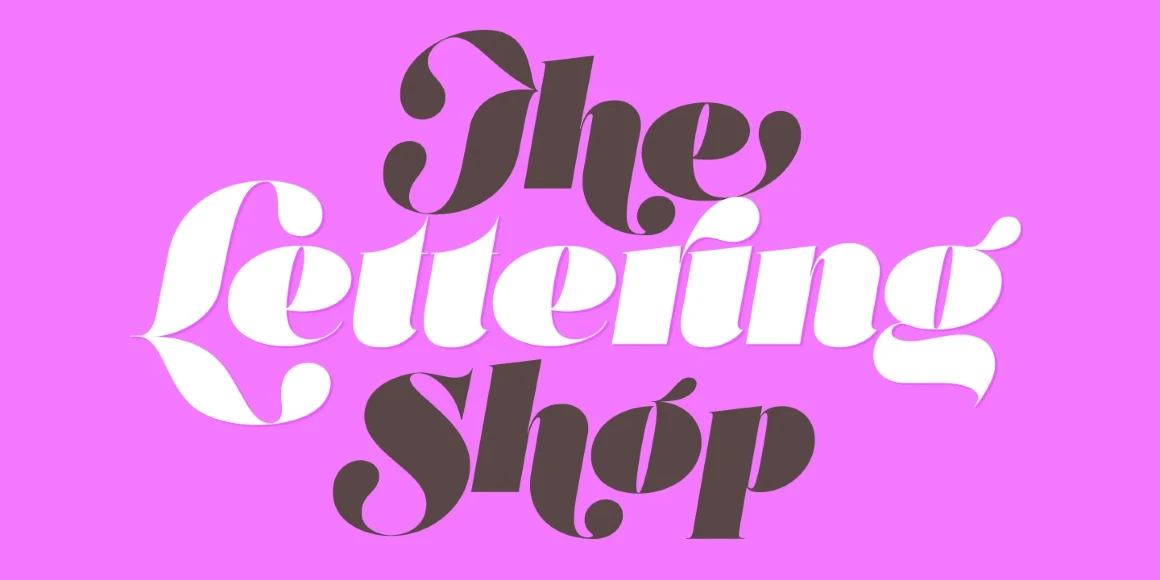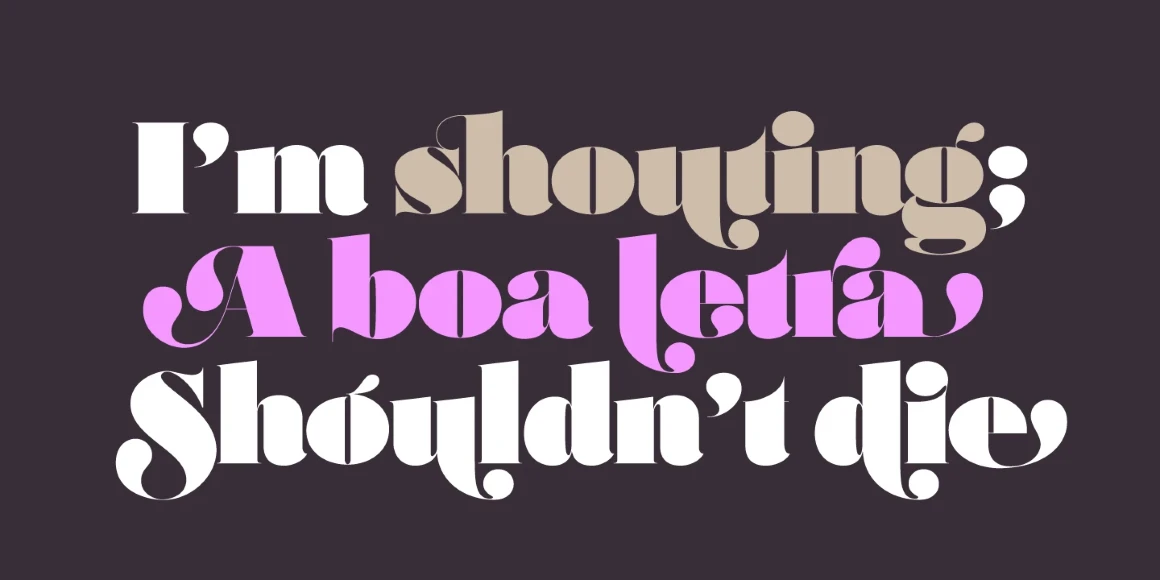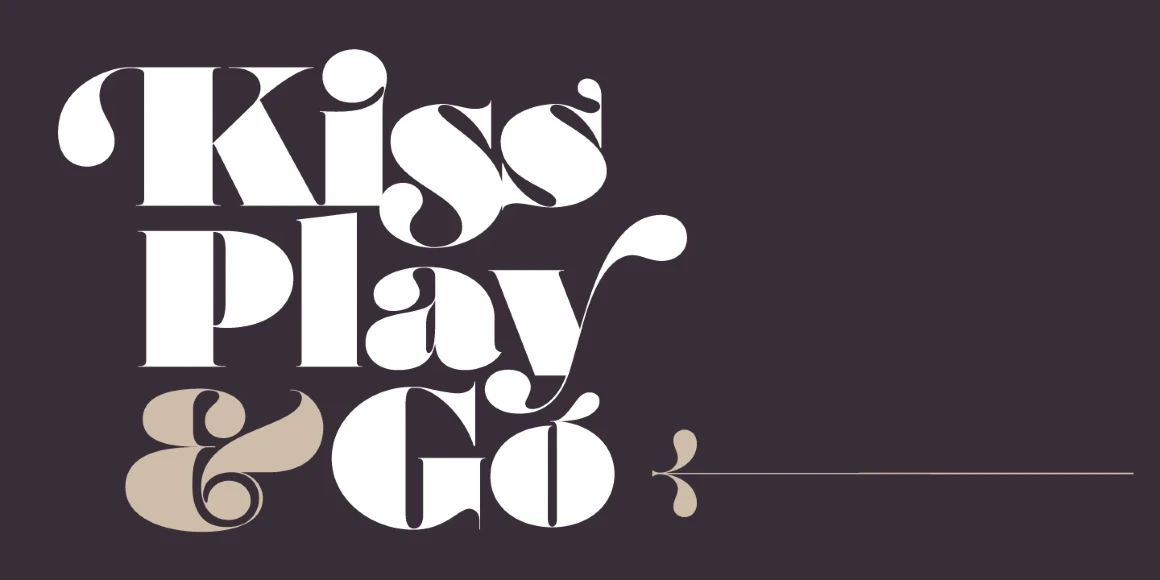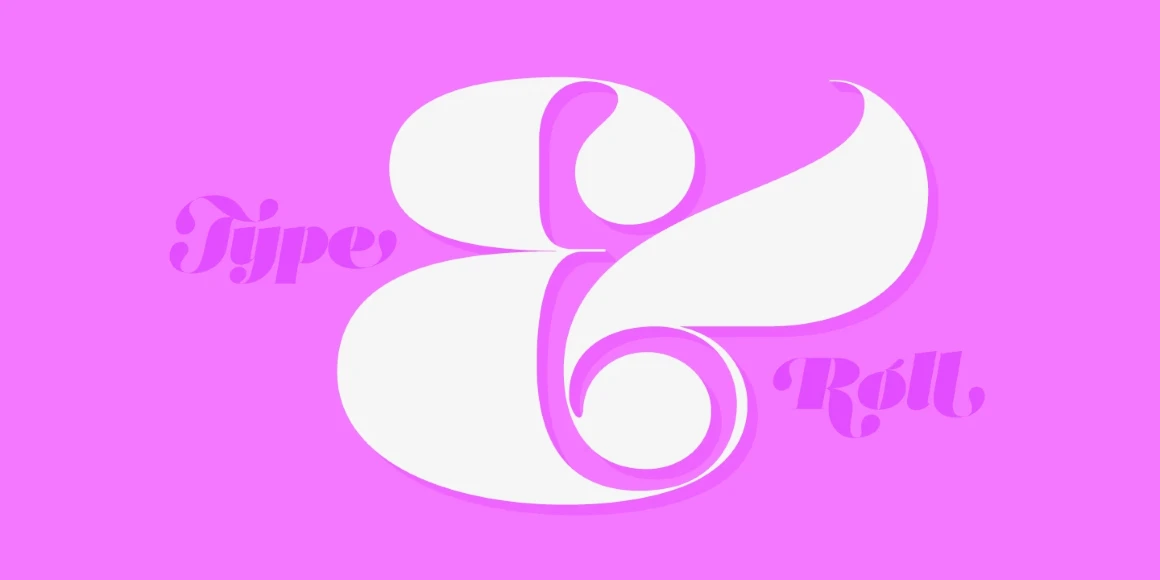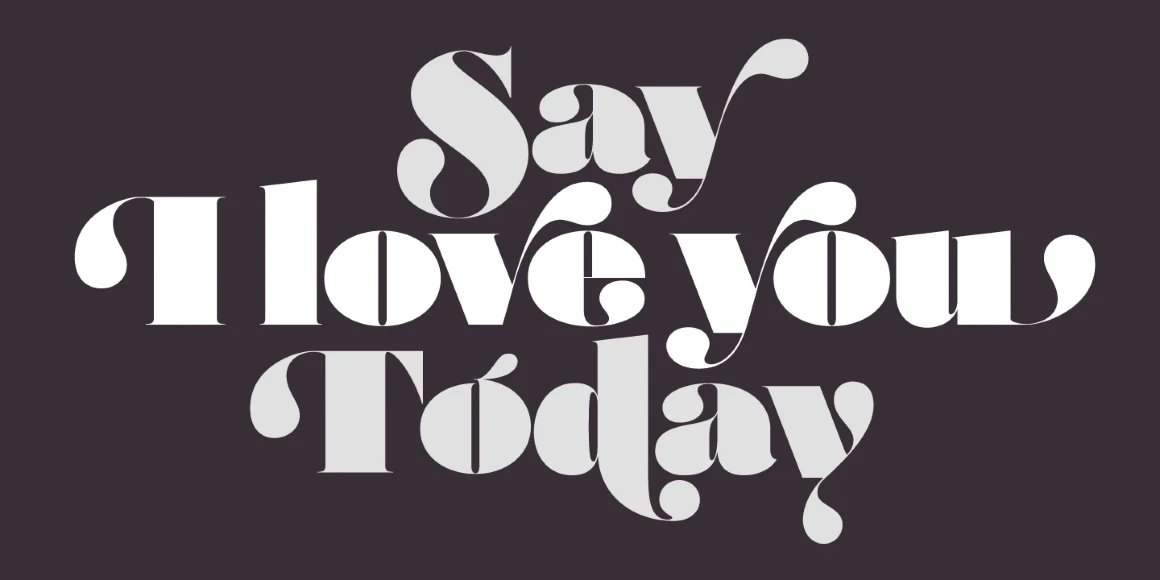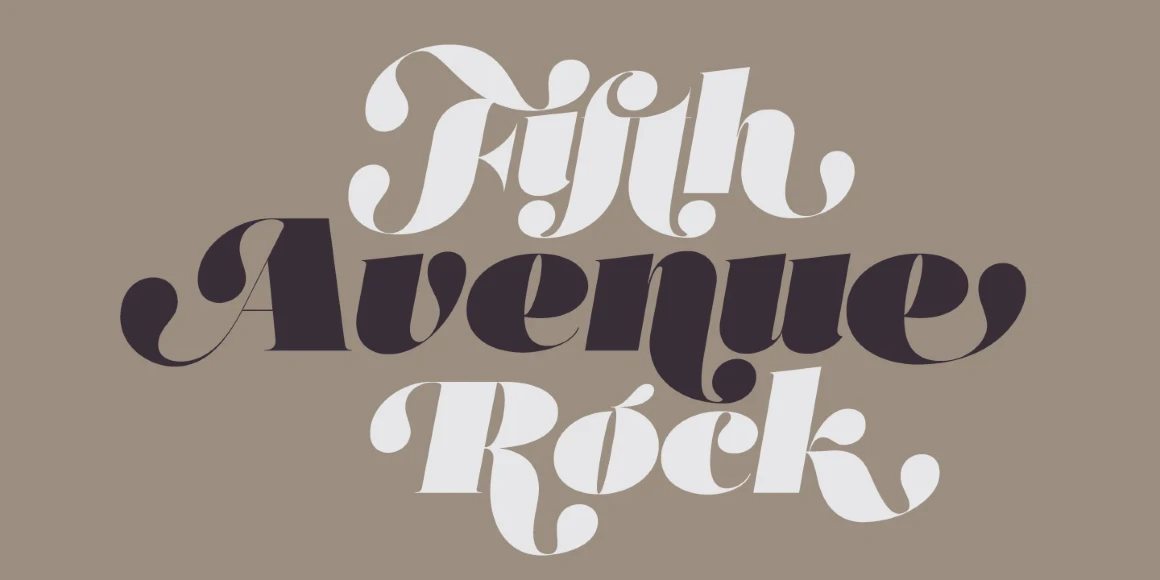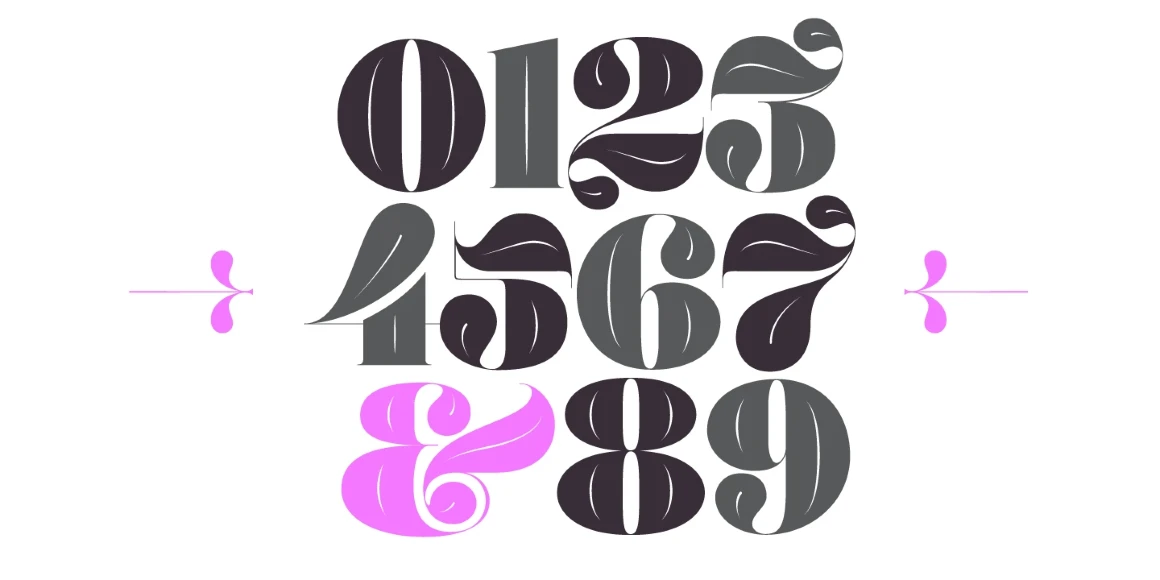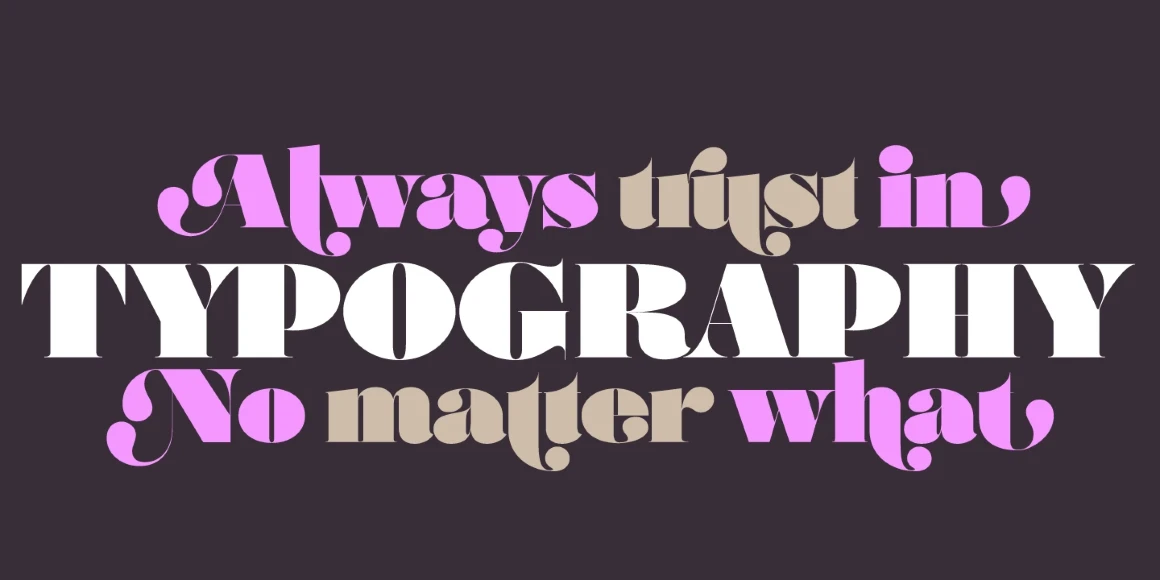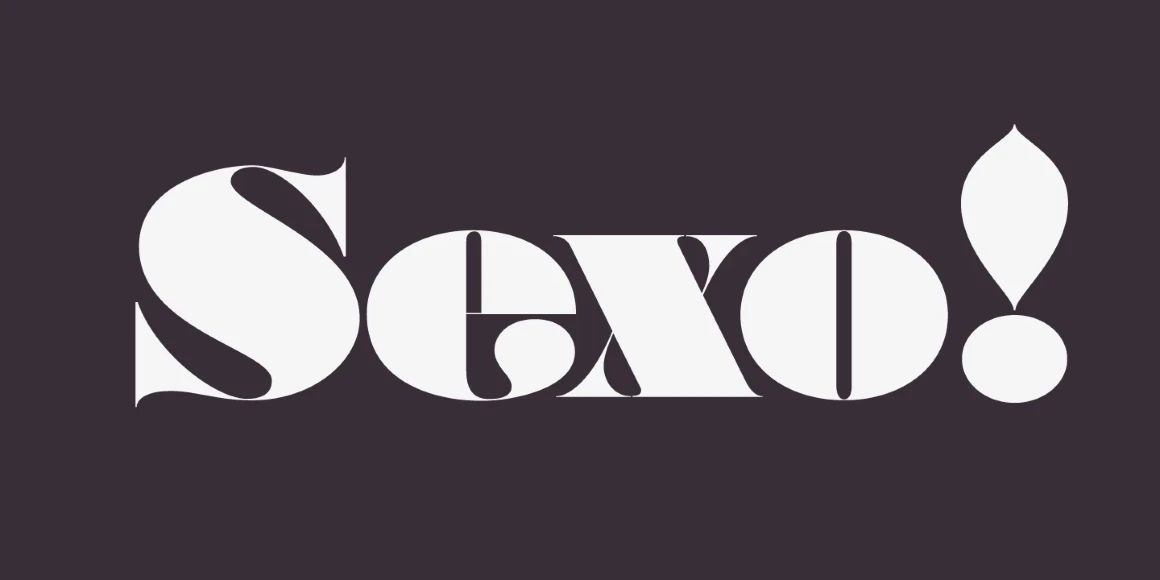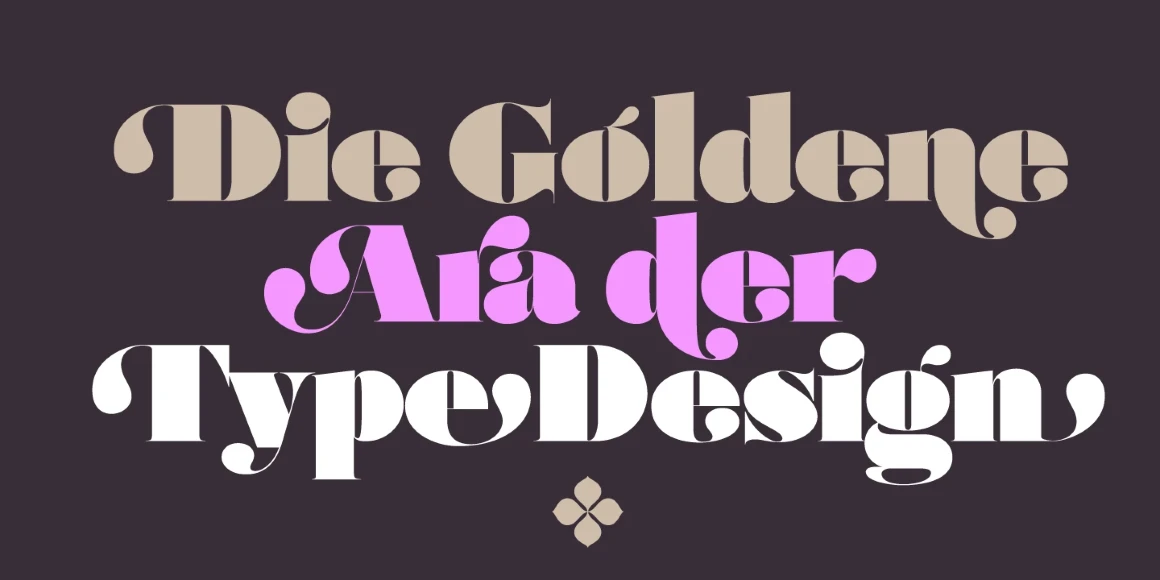
Posh
From Sproviero Type
Posh is bold, glamorous, and just a little over-the-top — in all the right ways. This high-contrast Didone is packed with elegant curves, swashy alternates, and serious attitude. With styles including Regular, Inline, Italic, and Capitals, Posh was made for fashion campaigns, beauty packaging, upscale event invites, and anywhere you want your type to steal the spotlight. Because sometimes, more is more.
Designed by Maximiliano Sproviero
Posh Ultra
Posh Ultra Capitals
Posh Ultra Inline
Posh Ultra Italic
Stylistic Set 8
Initial Forms
Final Forms